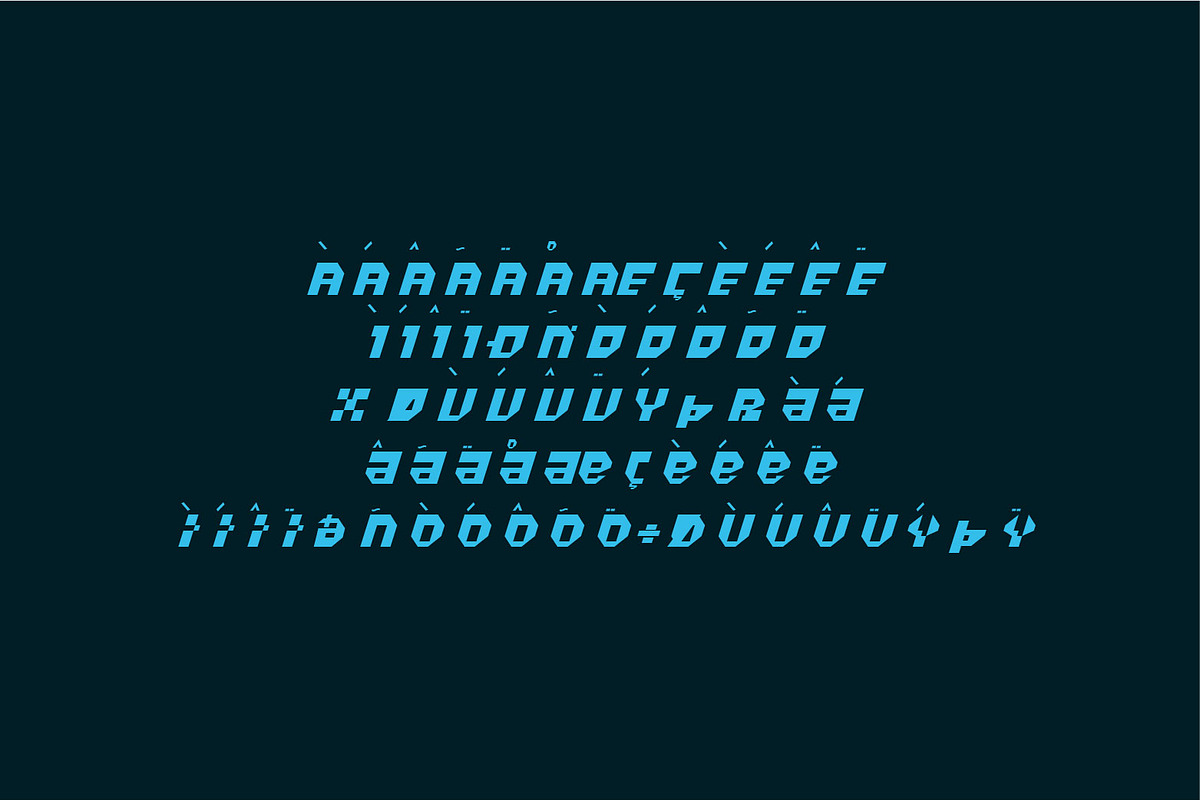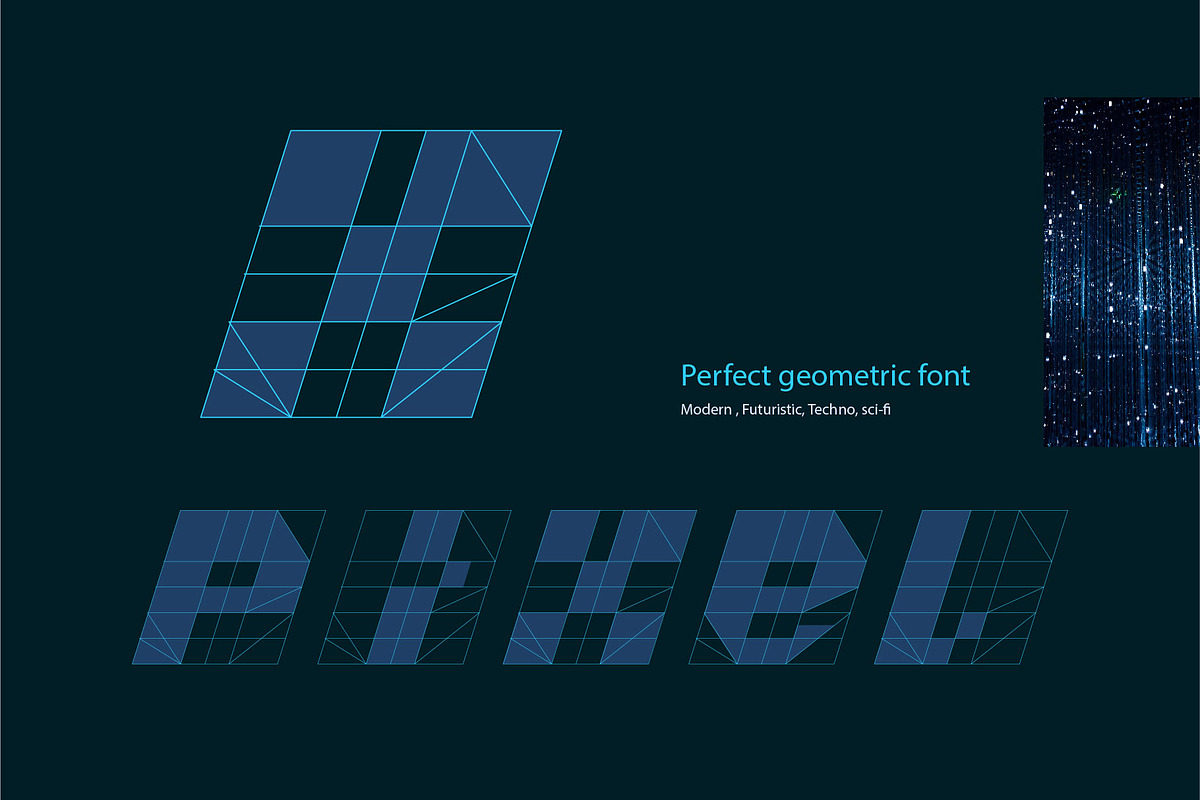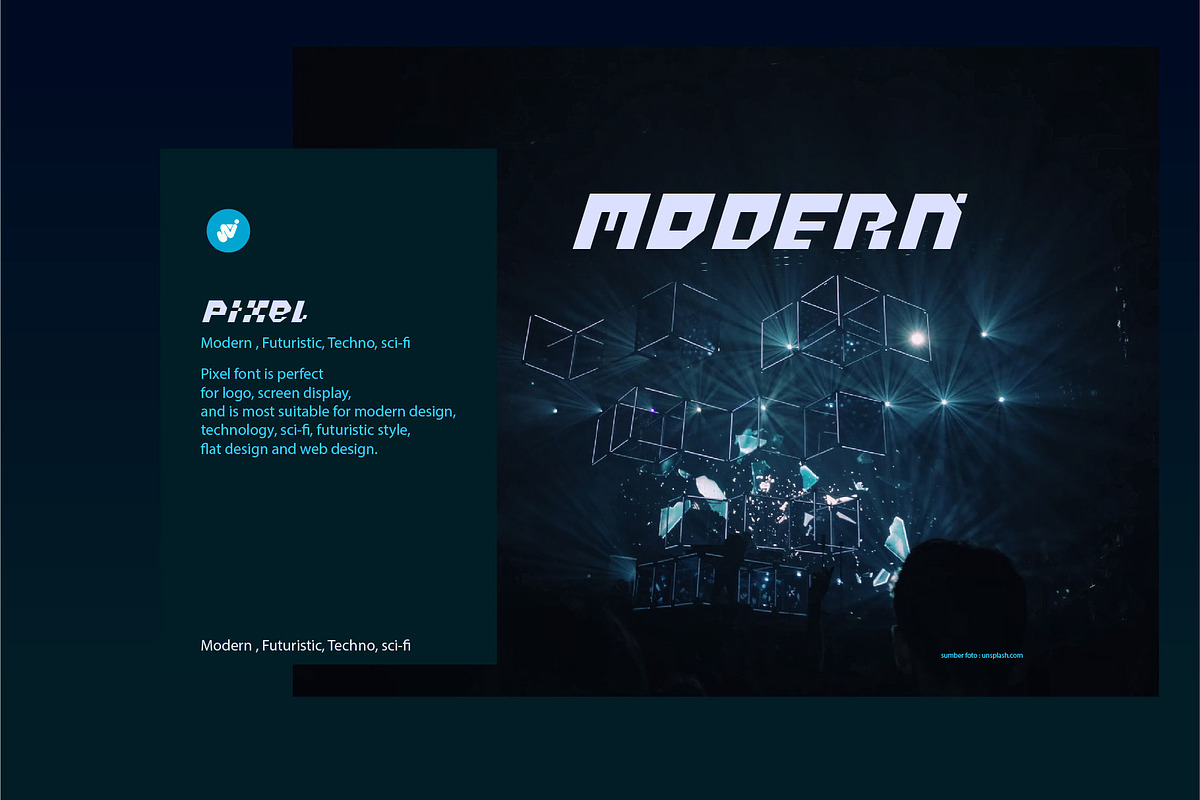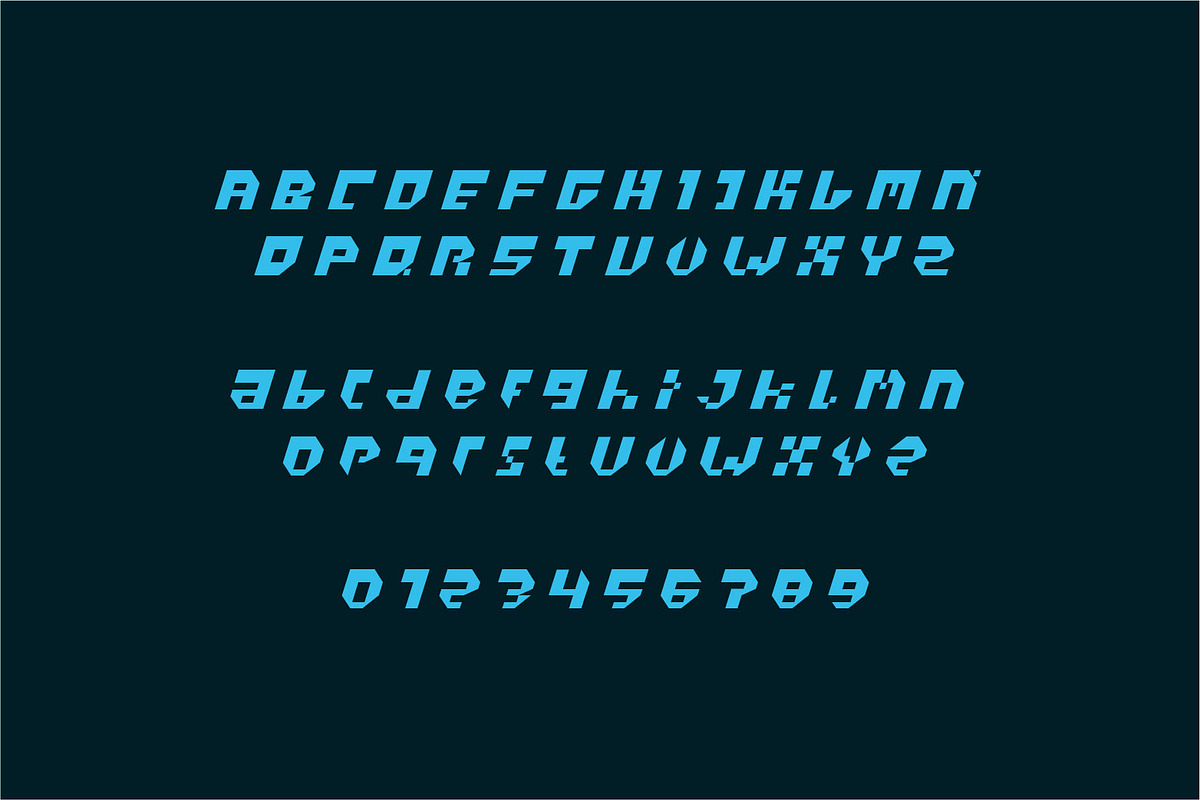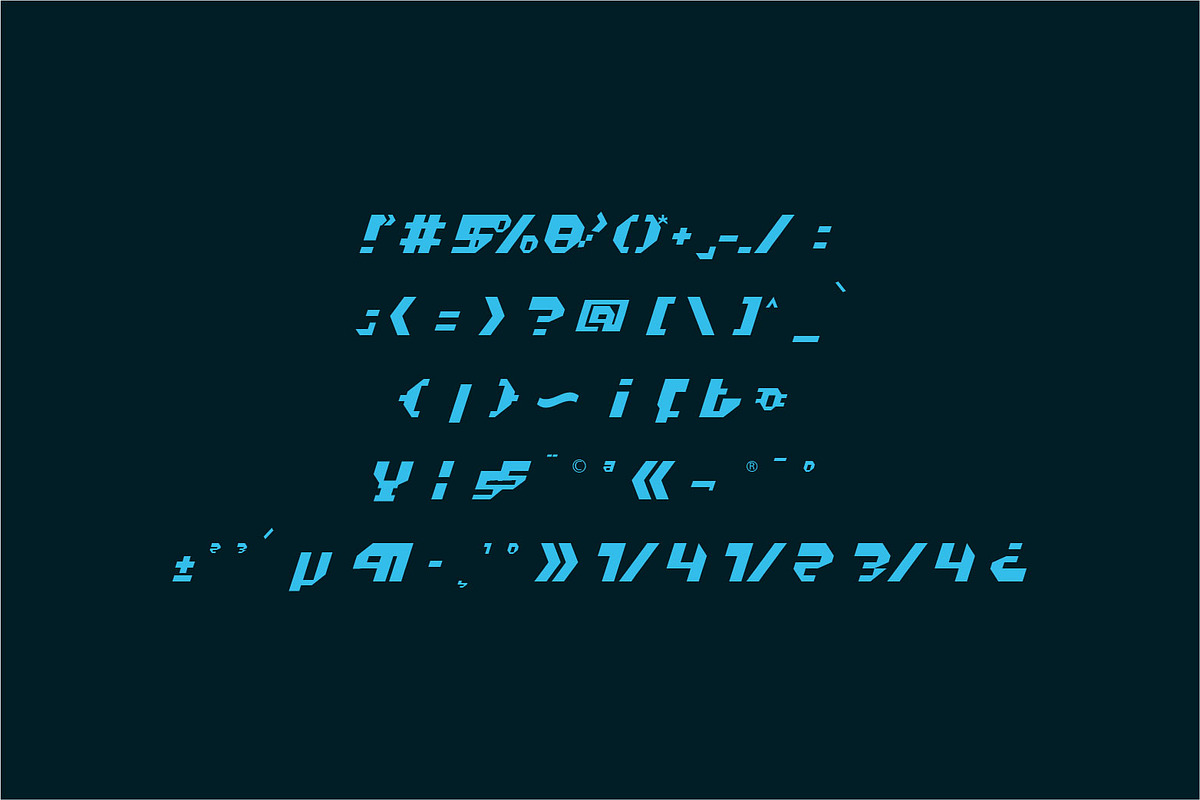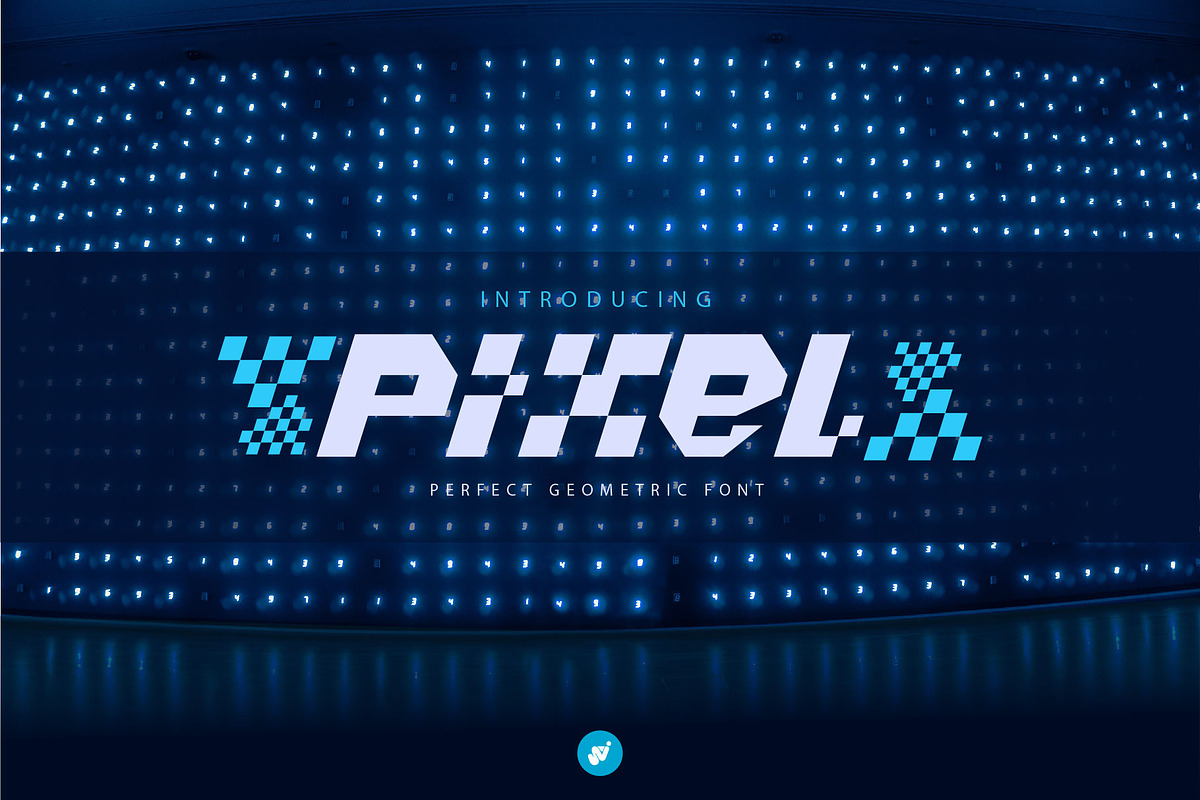
Pixel
Pixel is perfect geometric font, with clean and modern style.
Pixel font is perfect for modern logo, screen display, and is most suitable for modern design, technology, sci-fi, futuristic style, flat design and web design.